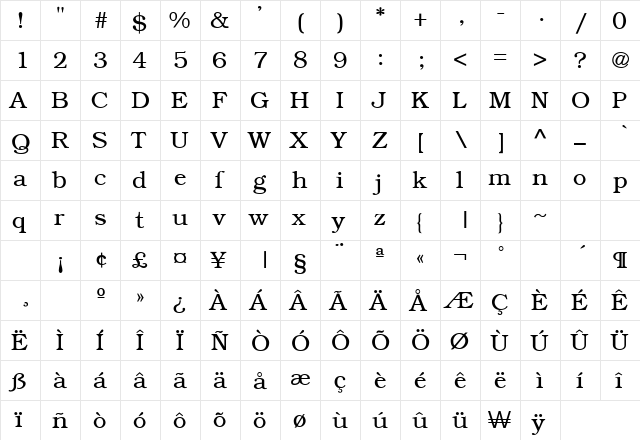
Brooklet Regular
Design Context for Brooklet Typeface
Brooklet offers clean, dependable letterforms without strong stylistic allegiance, making it a practical choice for designers who need flexibility.
Pro Tip: Pair Brooklet with a font of contrasting weight or personality to build a more expressive typographic hierarchy.